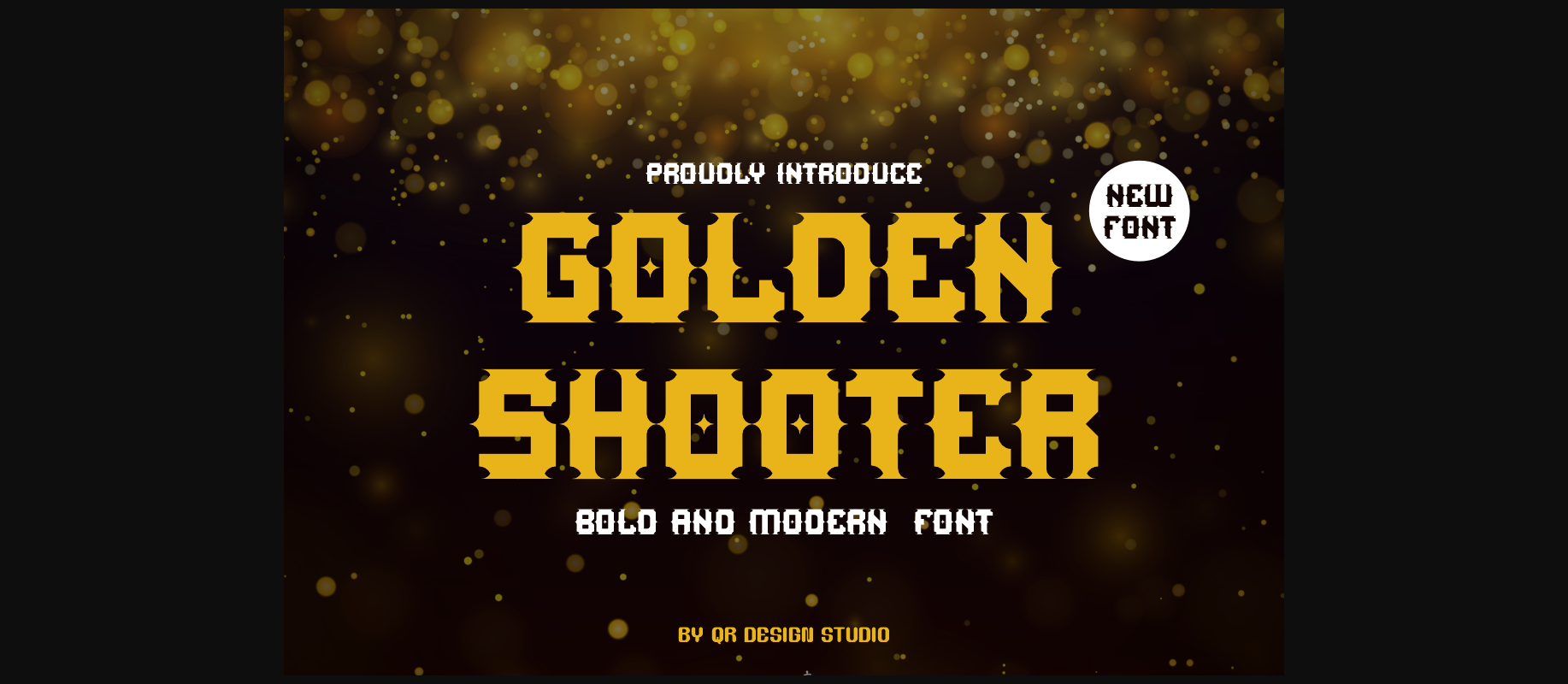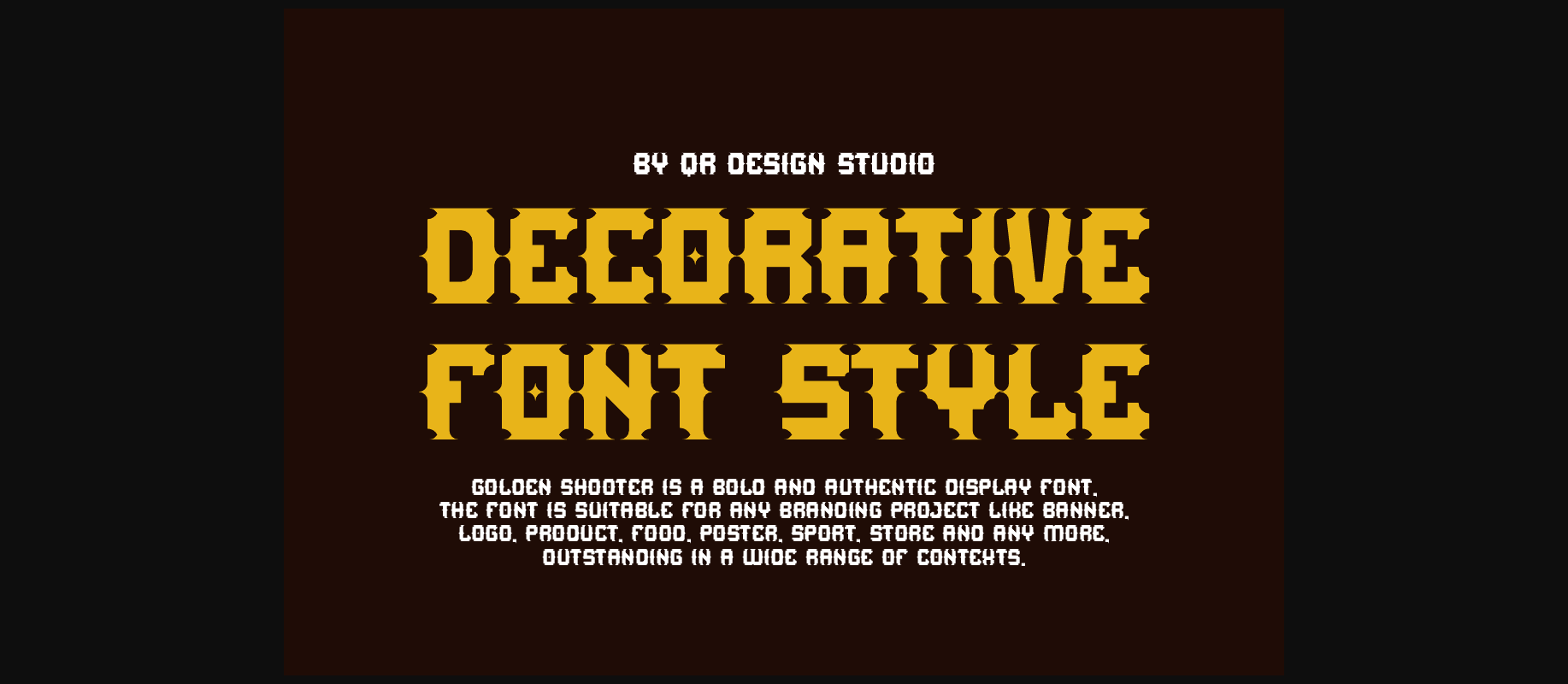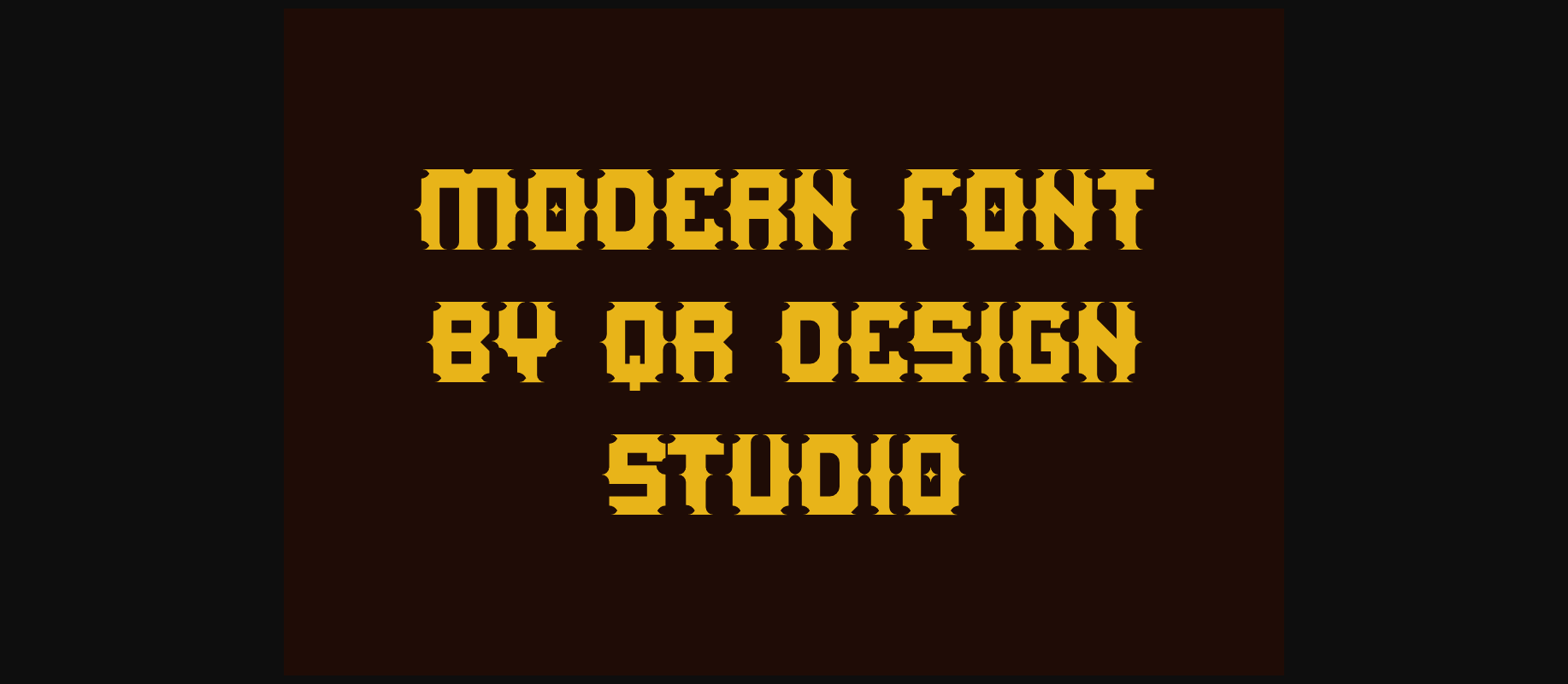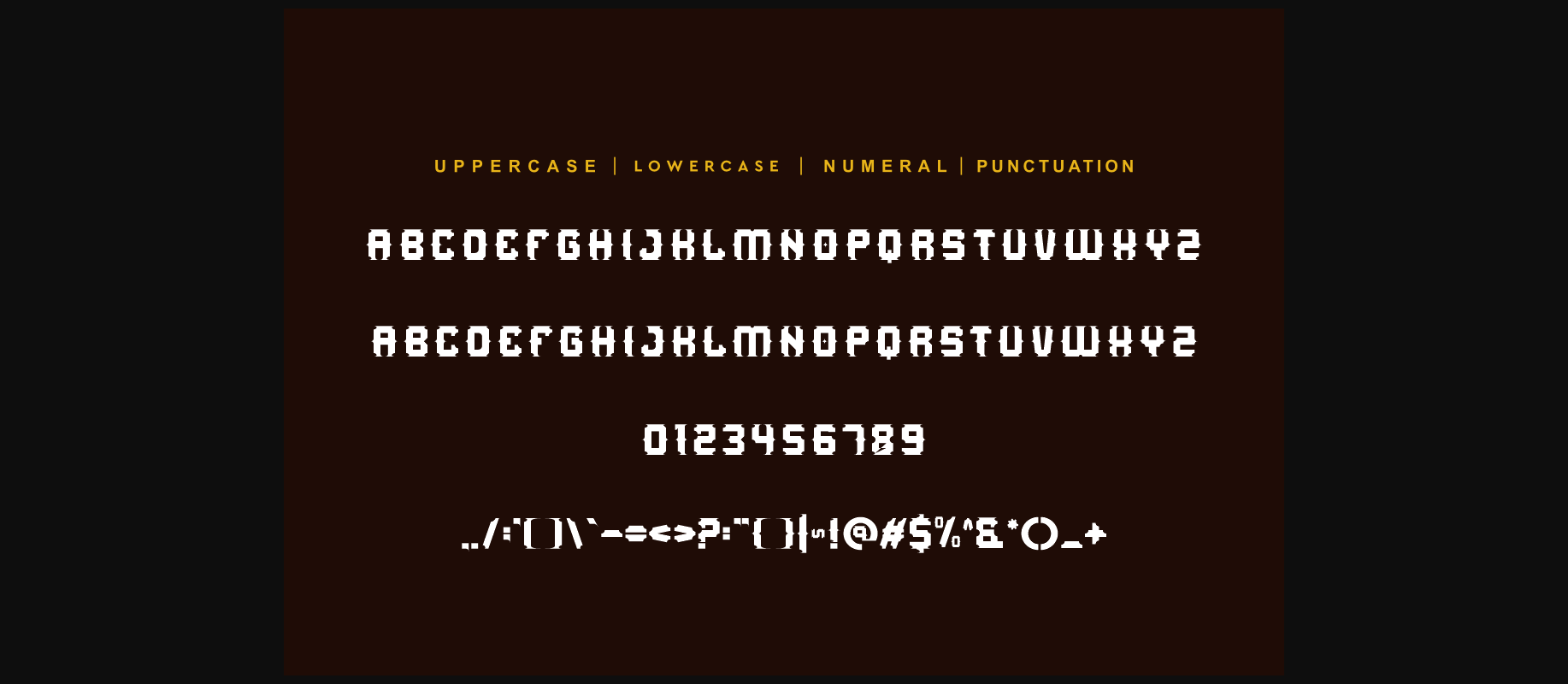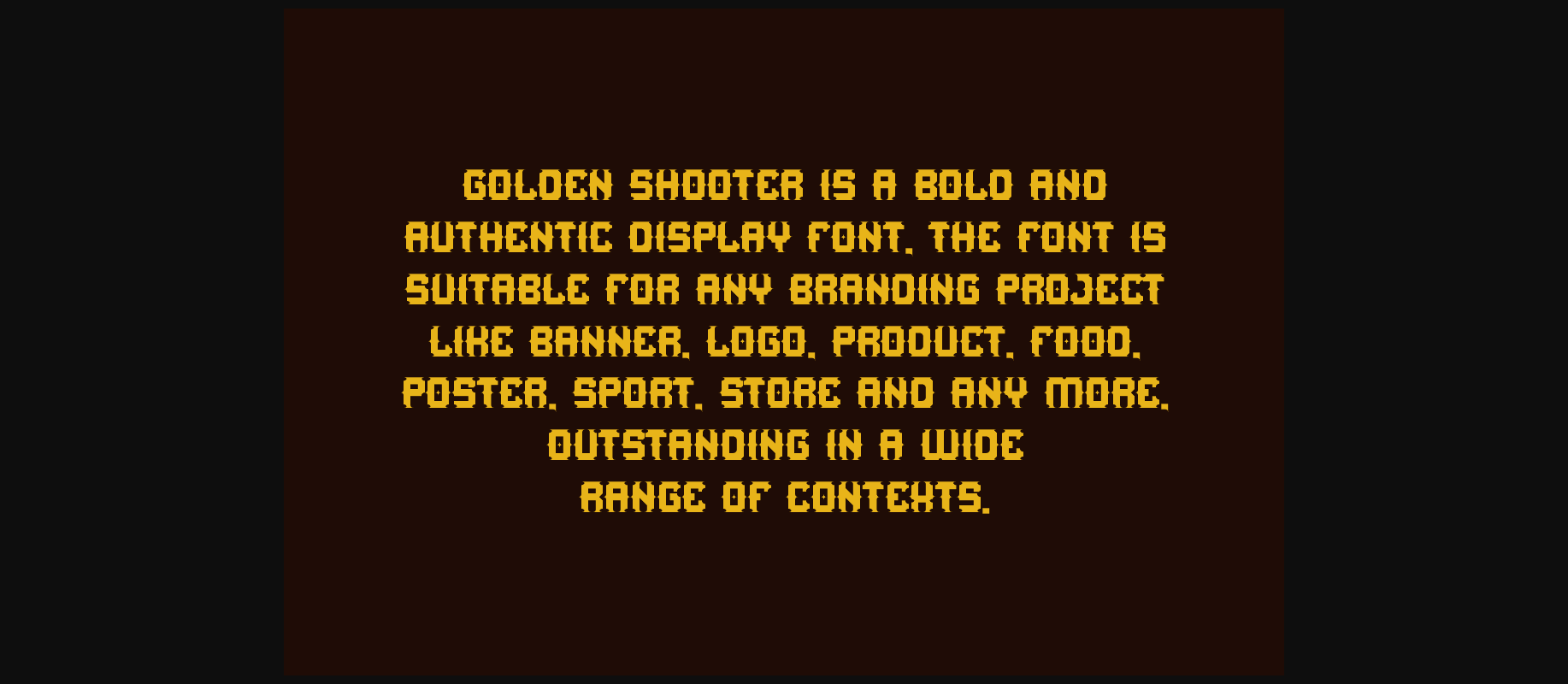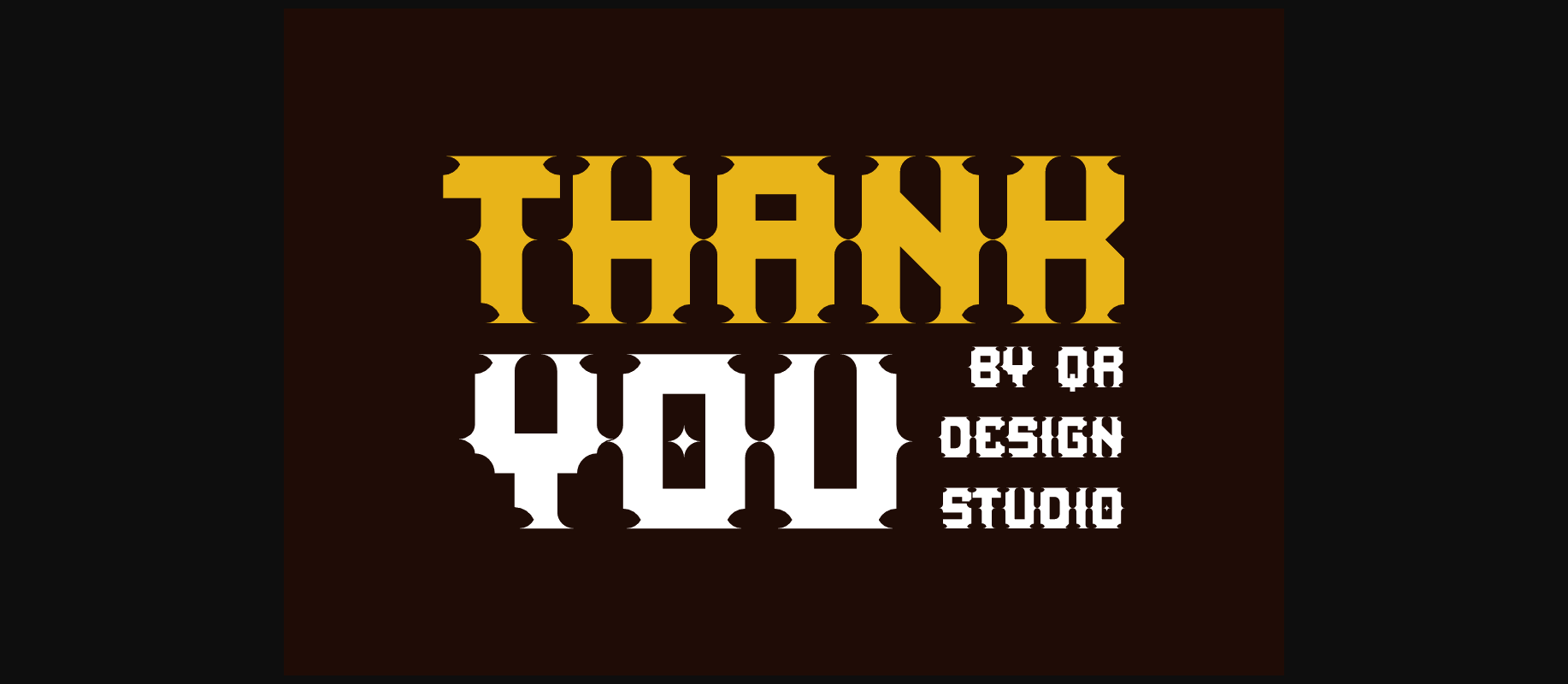
Golden Shooter is an incredibly cool and unique decorative font. It has a modern yet whimsical style and it will undoubtedly immerse your designs into a magical world.